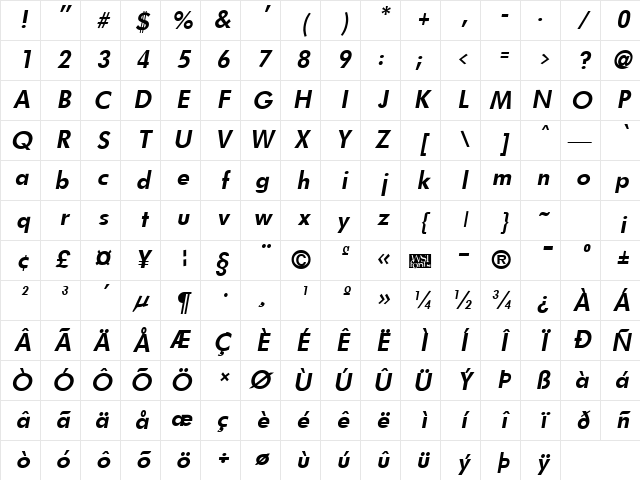
FuturistFixedWidth Bold Italic
FuturistFixedWidth Family
Complete FuturistFixedWidth Bold Italic glyph index. Displaying only characters natively supported by FuturistFixedWidth Bold Italic font.
Design Context for FuturistFixedWidth
FuturistFixedWidth has a distinctly futuristic character, with geometric precision and clean angles that feel at home in technology, gaming, and sci-fi contexts. The slanted form adds forward momentum and visual energy. Its bold stroke weight gives it real presence on the page.